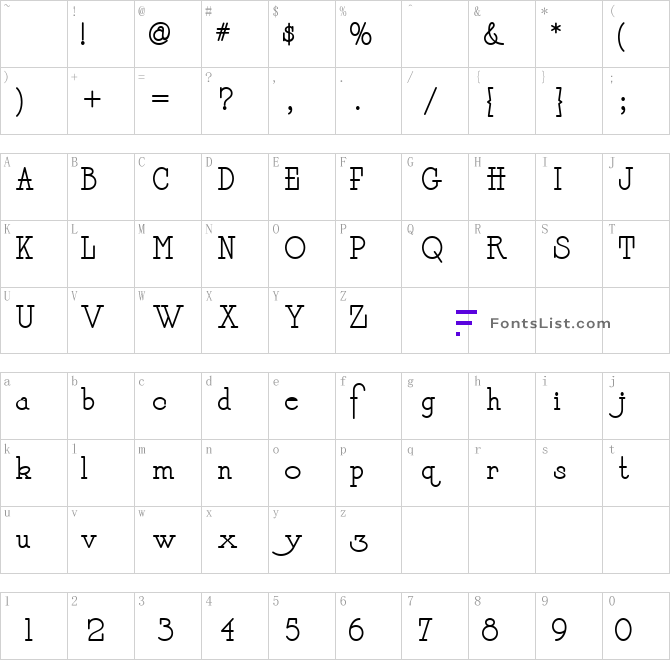
- Font Name:Daffadowndilly NF
Daffadowndilly-NF.ttf is a very beautiful artistic font, Daffadowndilly-NF.ttf is widely used in the design and printing of various books and pictures,Daffadowndilly-NF.ttf has a strong visual impact,Daffadowndilly-NF.ttf is a commonly used font in newspapers, magazines and books, and is used in posters, e-commerce Poster design, store design, logo design, font design and other fields.Daffadowndilly-NF.